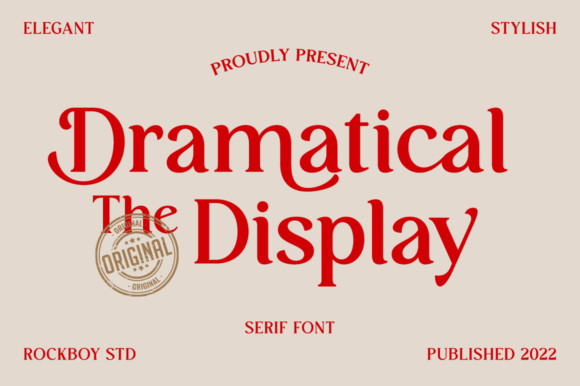
**The Dramatical Font is the Perfect Way to Make Your Words Stand Out**
Introducing Dramatical, the elegant and distinctive serif font that will add a touch of sophistication to all your designs. With its thin, clean lines, Dramatical is perfect for creating logos, branding, invitations, and more. But don't just take our word for it - here's what people are saying about Dramatical:
_"Dramatical is the perfect font for my new book cover. It's elegant and sophisticated, and it really makes my title stand out."_
_"I love using Dramatical for my branding. It's so versatile, and it always gives my designs a professional look."_
Dramatical is sharp and easy to read, making it perfect for body text. It also comes in both regular and bold weights, so you can create a variety of looks. And best of all, Dramatical is available for free download.